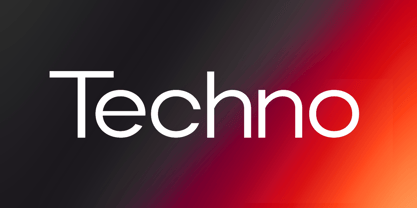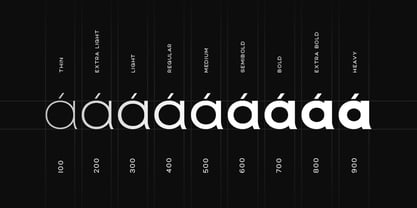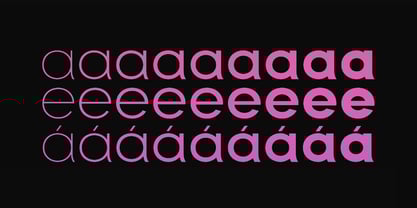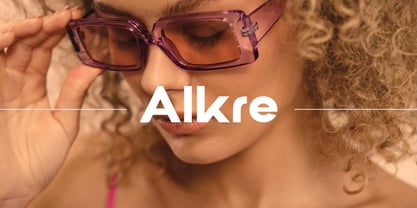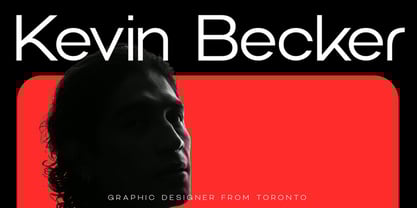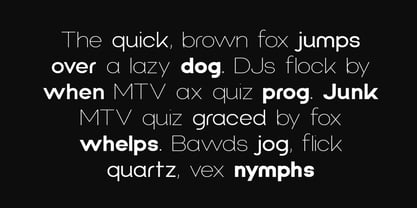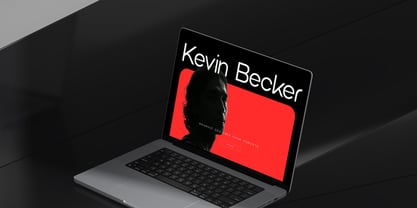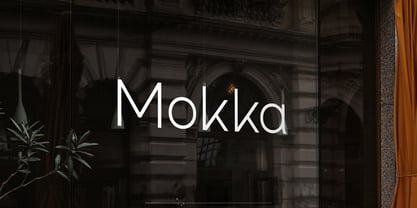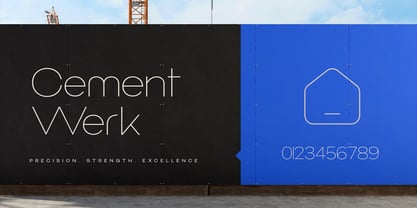
Techno Nue
by Webhance
The Techno Nue Font Family was designed by Alwin Johnson and published by Webhance. Techno Nue contains 9 styles and family package options.
Introducing Techno Nue, a sophisticated sans-serif font family meticulously crafted to enhance your design projects with its modern aesthetic and minimalist sensibility. With 9 meticulously designed weights ranging from the delicate Thin to the commanding Heavy to meet all your design needs.